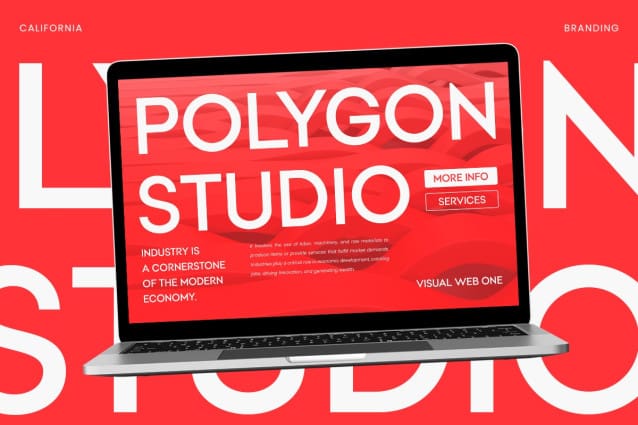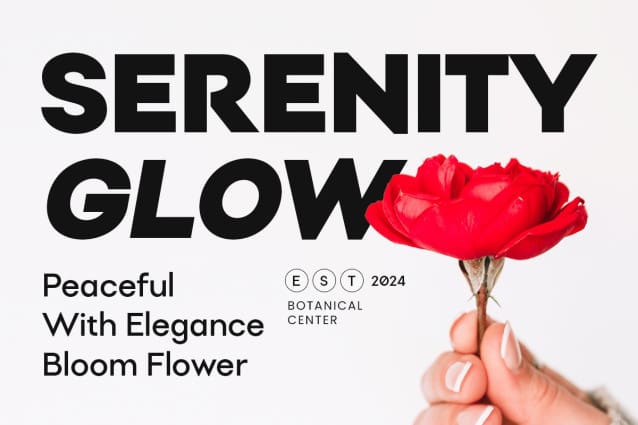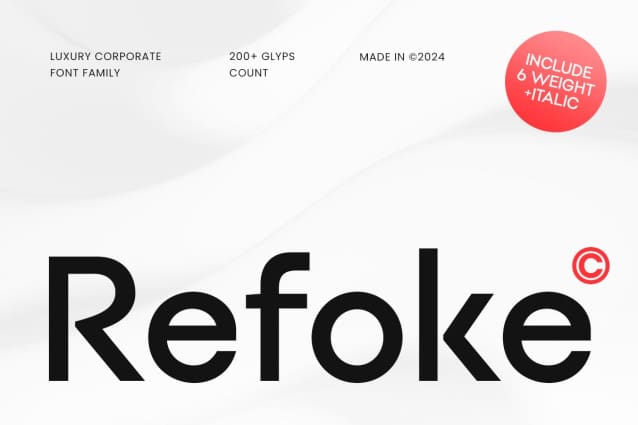
Refoke Font Family
Refoke Font Family is a luxurious corporate font family designed to bring sophistication and elegance to your branding projects. Inspired by a modern and high-end aesthetic, Refoke brings a refined and professional touch, making it the perfect solution for businesses that want to bring confidence and class to their visual identity.
Each Refoke character is carefully crafted, with elegant ligatures and alternate characters to bring flexibility to your designs. The font combines modern serif style with a corporate touch, making it ideal for logos, corporate branding, marketing materials, and high-end projects. Whether you’re designing for luxury brands, high-end products, or exclusive services, Refoke adds a touch of sophistication to any artwork.
Refoke Font is the perfect solution for businesses that want to make a bold and high-end statement. It stands out for its corporate identity, editorial design, and even website headers. The font is versatile enough for various projects, ensuring consistency and style in every application.